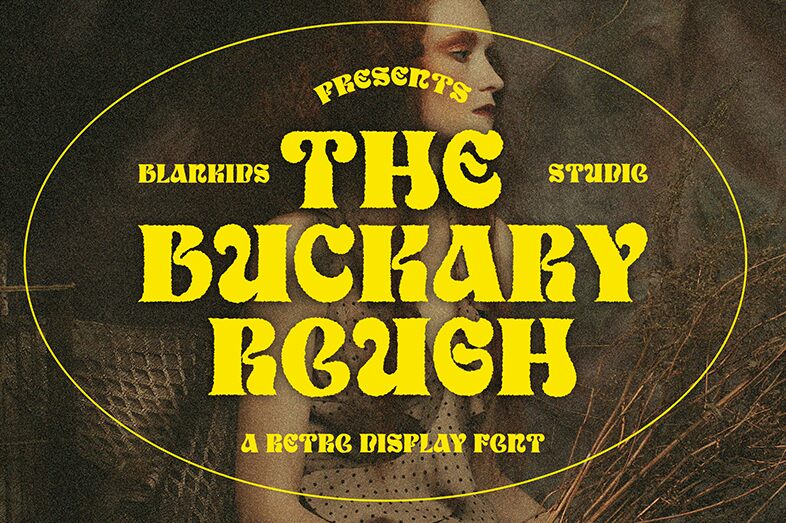
Buckary Regular
Buckary, crafted by Bangkit Tri Setiadi, is a display font with a bold retro flair that exudes confidence and charm. Its extra-bold weight commands attention, making it an ideal choice for headlines, branding, and advertising where a touch of nostalgia meets modern design sensibilities.
The robust character of Buckary lends itself to creative projects looking to make a strong visual statement. Whether used in digital graphics or print media, this font's stylishly retro aesthetic can add personality and a distinctive voice to any design.
Buckary by Blankids Studio